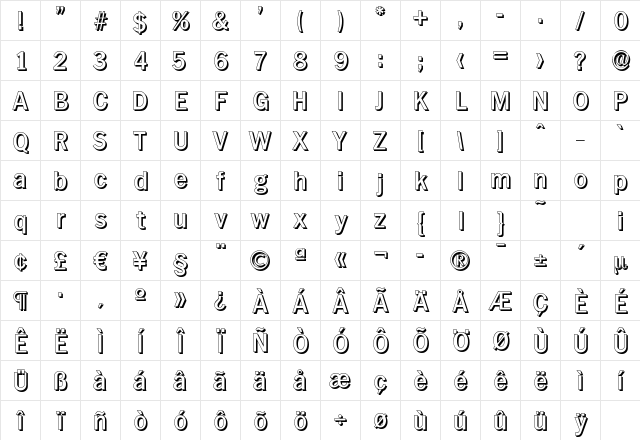
PlymouthDropShadow-Medium Regular
Design Context for PlymouthDropShadow-Medium
PlymouthDropShadow-Medium is built around its visual character rather than neutral utility - its distinctive forms are designed to make an impression at display sizes.
Font Pairing: Pair with a clean neutral sans-serif for body copy to let PlymouthDropShadow-Medium's character lead without overwhelming the composition.
Pro Tip: Use PlymouthDropShadow-Medium exclusively at display sizes - it was designed to be seen, not read at length. Let a neutral companion handle body copy.